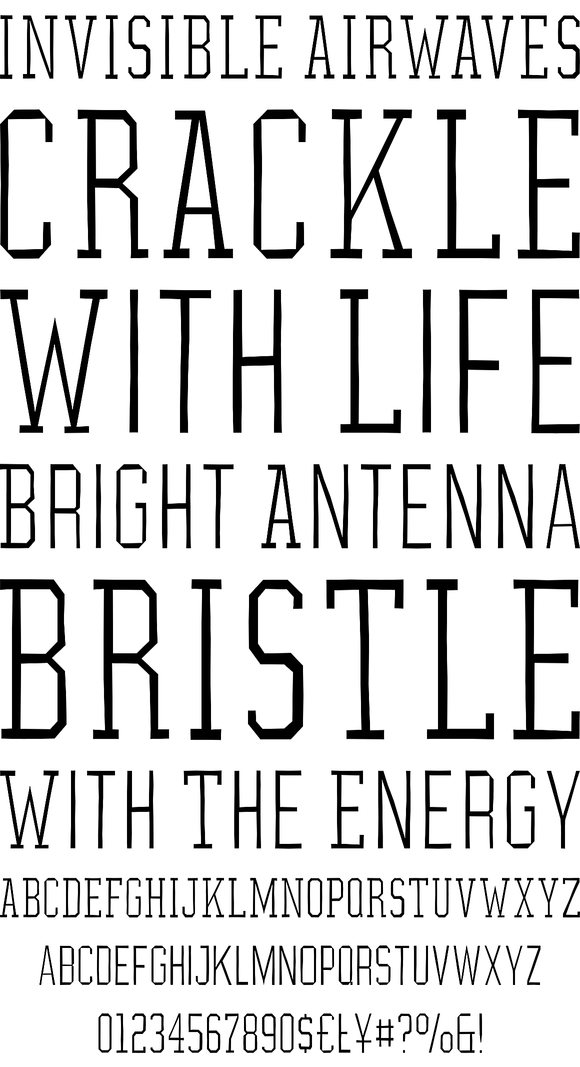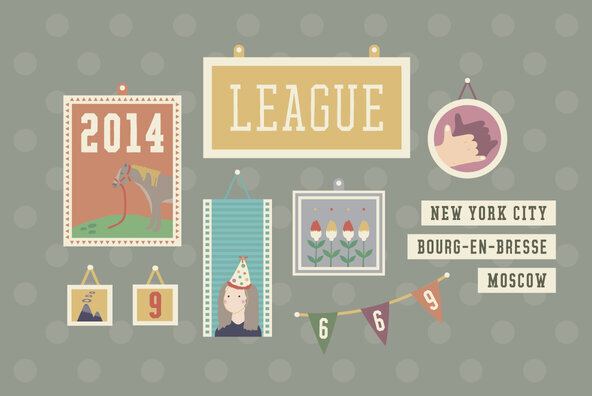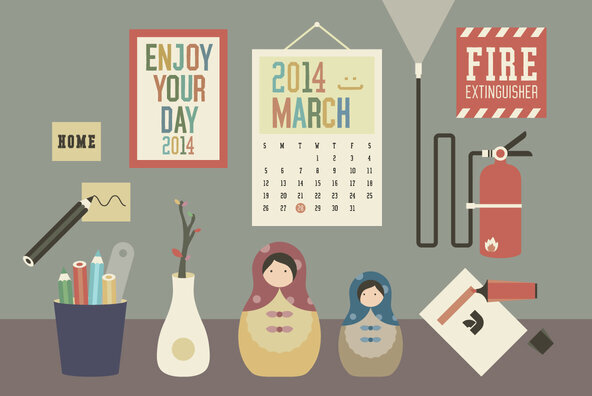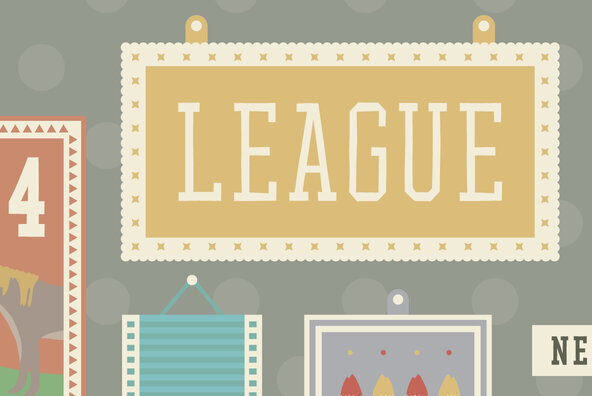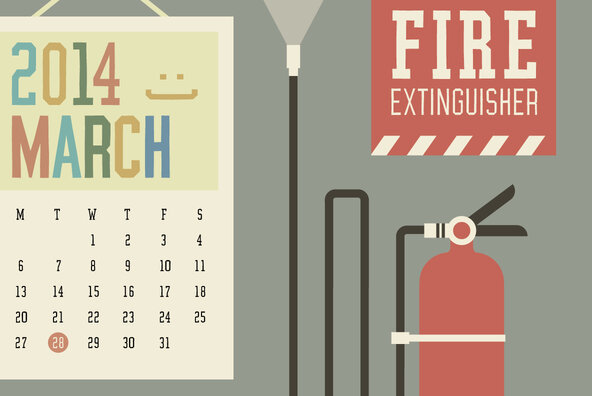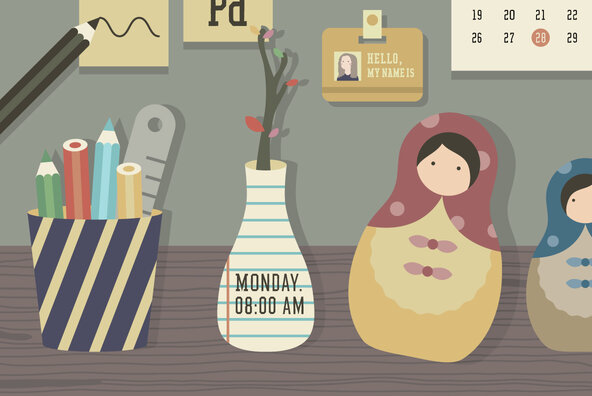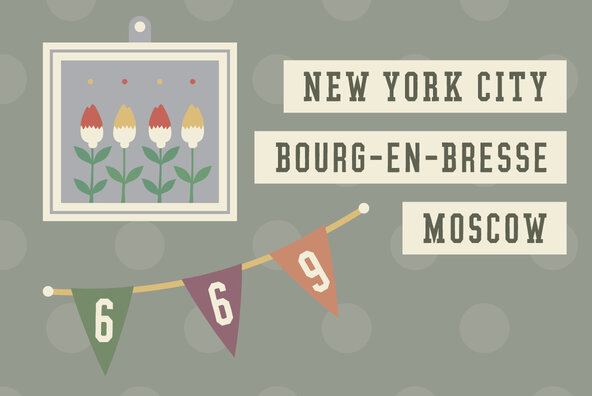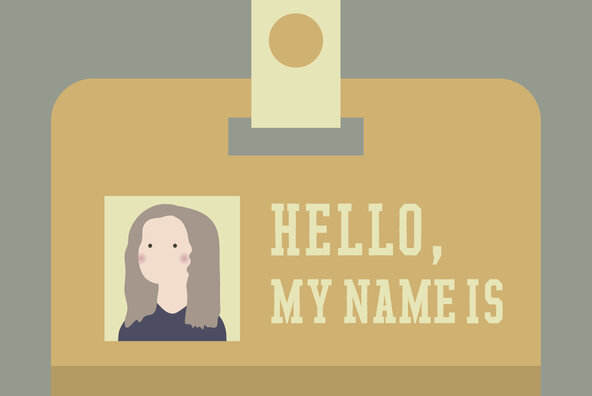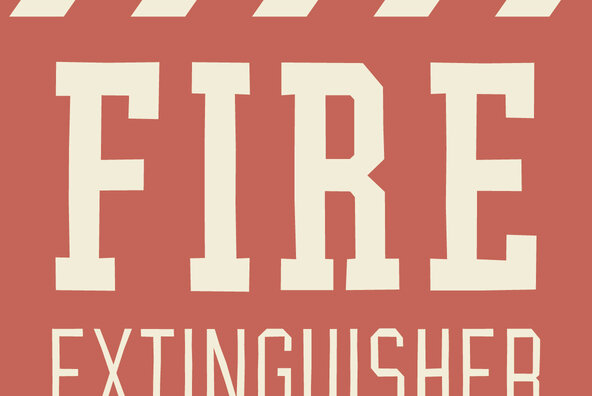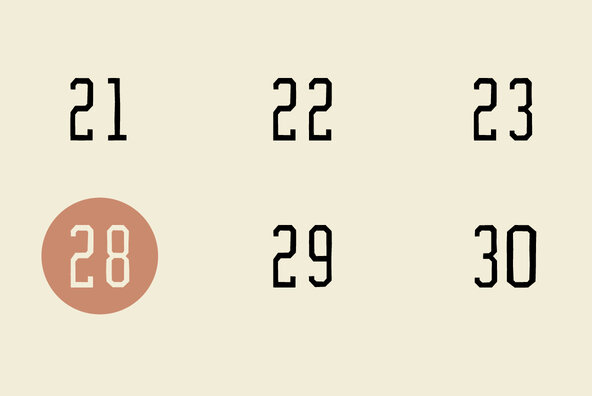
YWFT League
You've been working hard, and your team is really looking good this year. We'd like to invite you to join the League. YWFT League, that is. Inspired by high school and college football jerseys, YWFT League is in keeping with the strict and rigid style of its inspiration, but isn't afraid of quirks and tilts. YWFT League works great in sports, education and other team-oriented design works. YWFT League was converted to opentype in 2010, it was formerly known as Graphium. Designed exclusively by Michael Cina and YouWorkForThem.